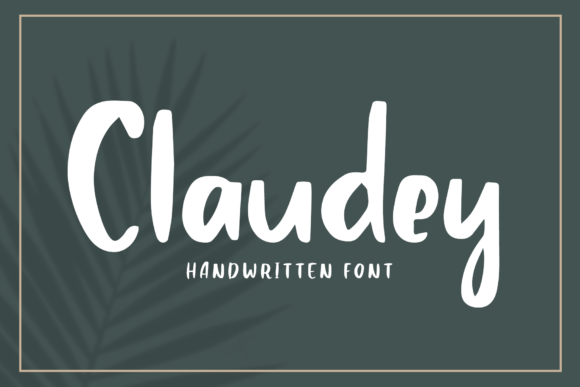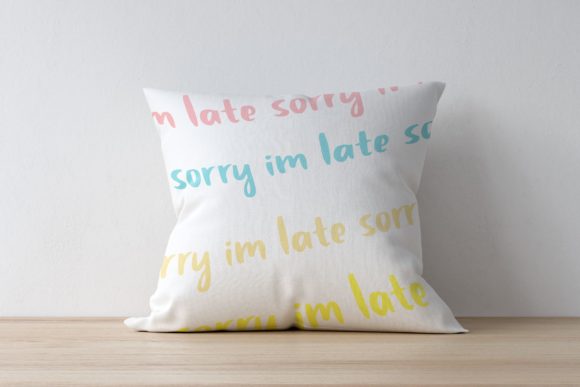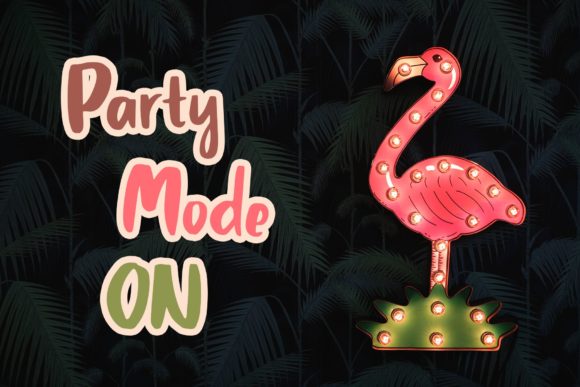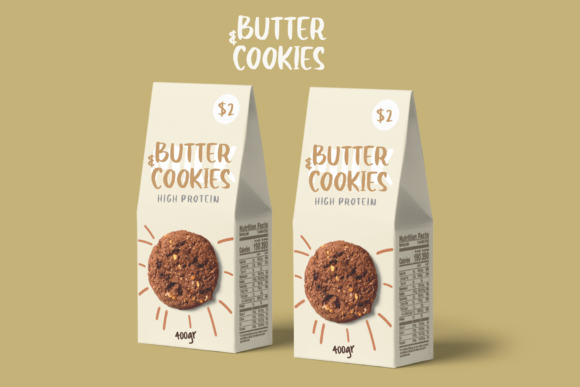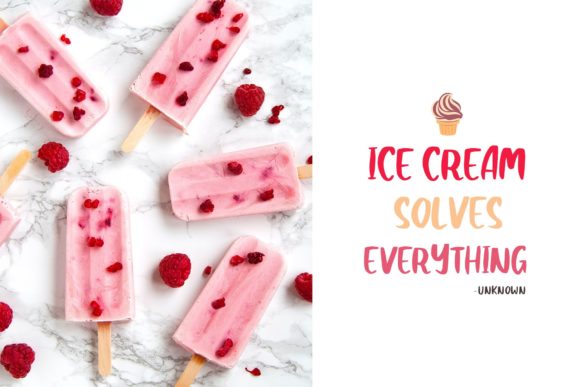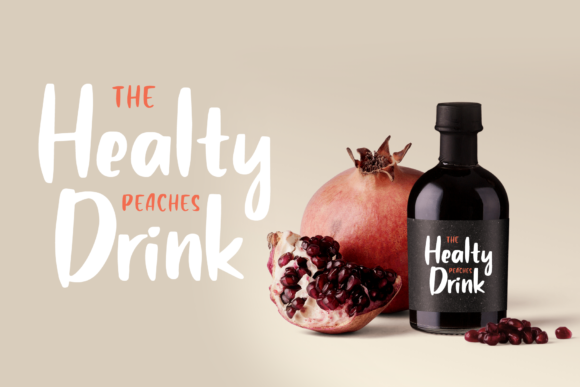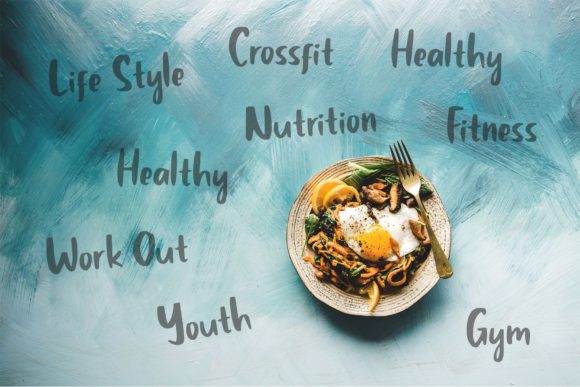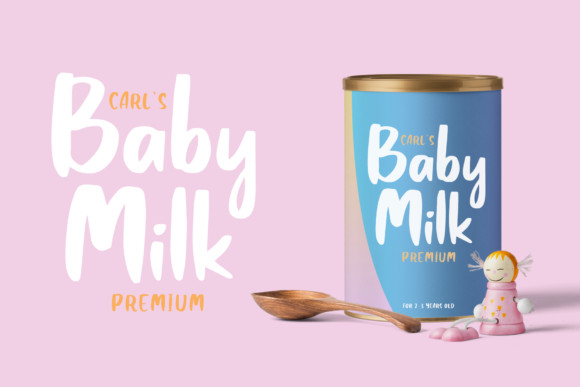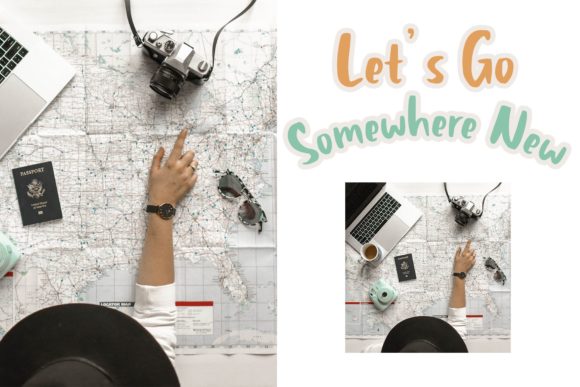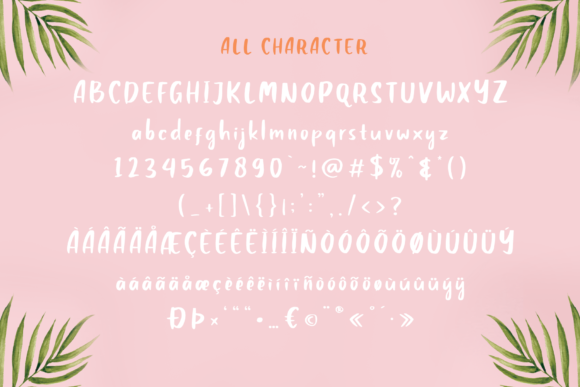
Claudey Font
About Claudey Font
The Claudey is a striking handwritten font. It lets you transform type into an exciting and beautiful piece of work. The irregular, hand-lettered look adds a real human touch to things and comes along with a lot of loving details. Combine all font-styles the way you want, add some ornamental swashes or banners and even a single word becomes magnificent.